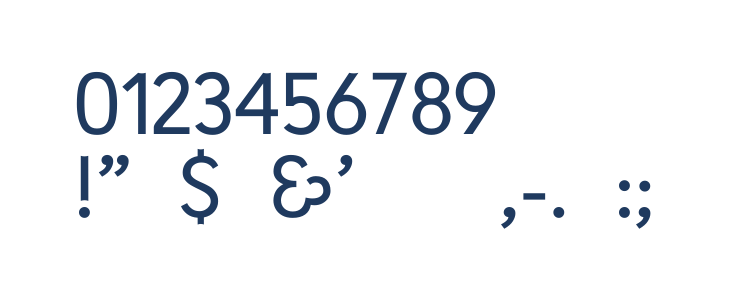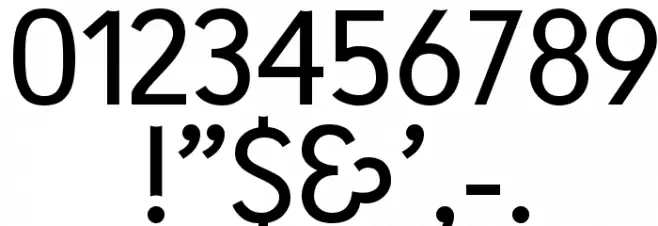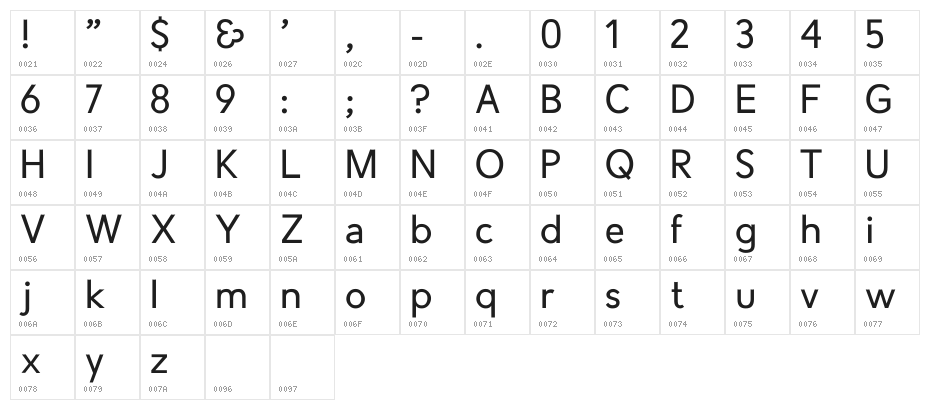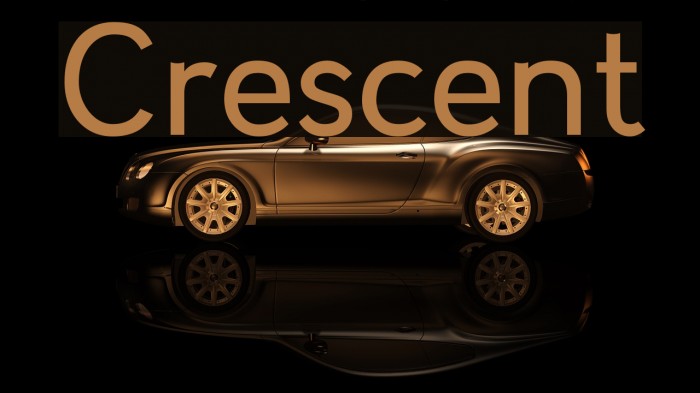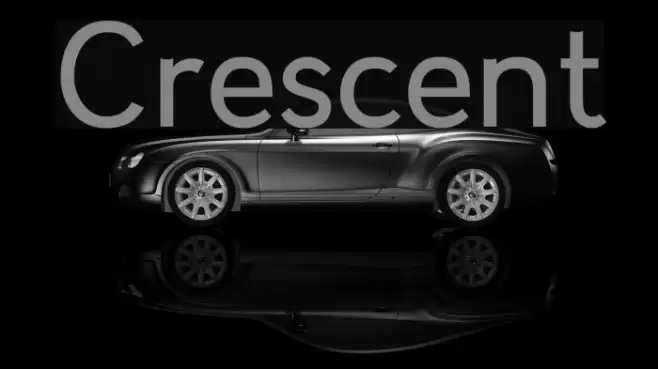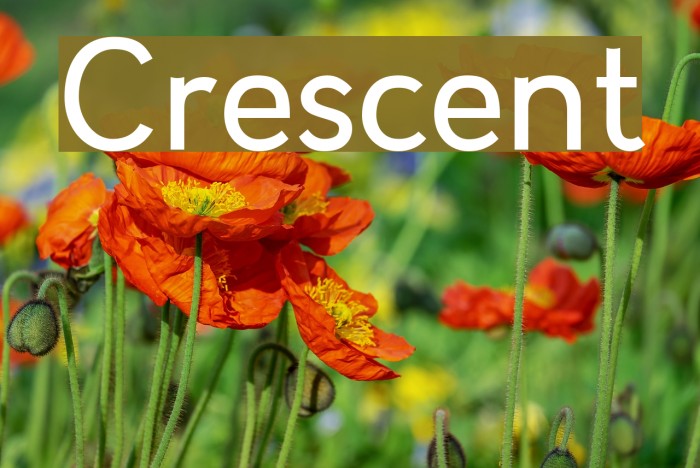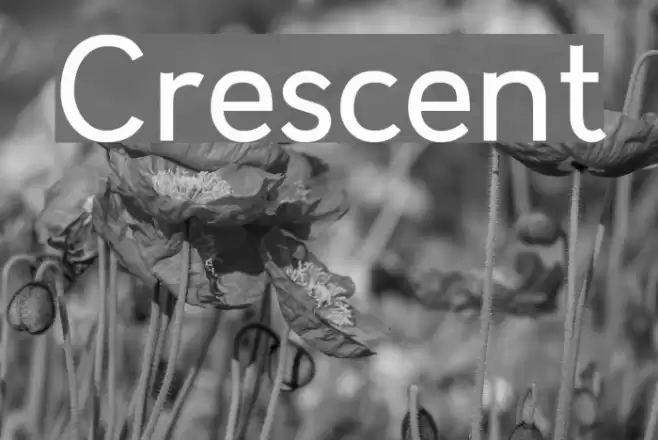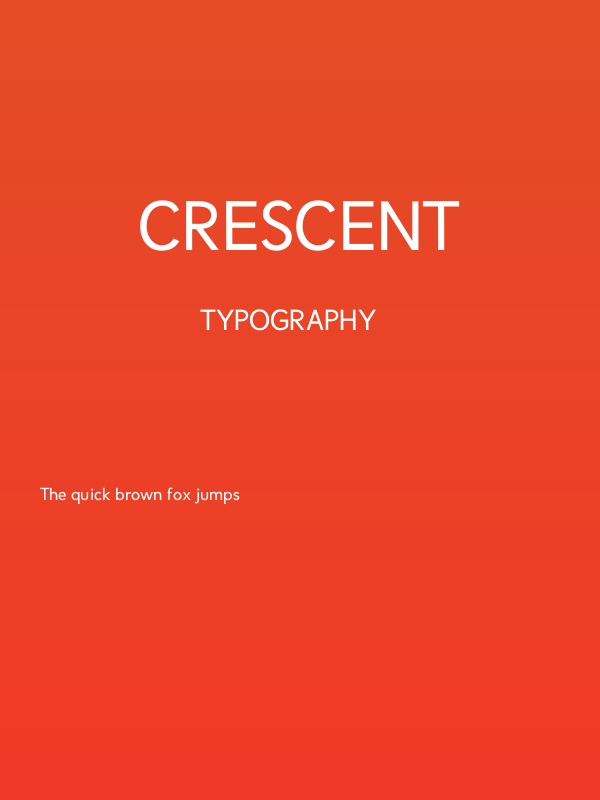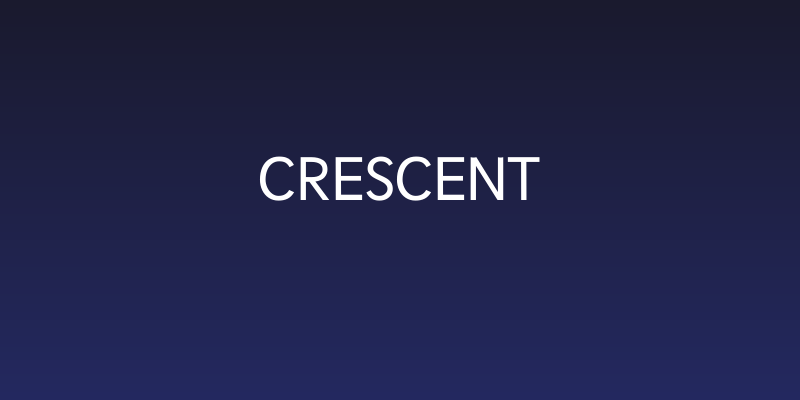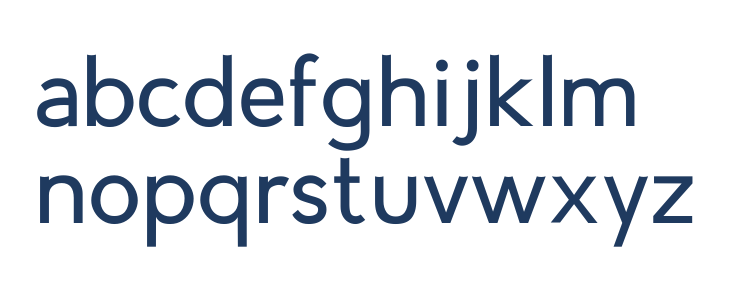
Crescent Font
Crescent Description
This font features a clean and modern sans-serif design, characterized by its geometric shapes and uniform stroke widths. The characters are well-balanced, offering a harmonious appearance that is both professional and approachable. The uppercase letters are bold and assertive, while the lowercase letters maintain a friendly and open feel. The numerals are clear and easily distinguishable, making them suitable for a variety of applications. Special characters are designed with simplicity in mind, ensuring they blend seamlessly with the rest of the typeface. Overall, this font exudes a contemporary aesthetic that is versatile for both digital and print media.
| Proposed Projects | Ideal for branding, web design, corporate materials, and editorial layouts. |